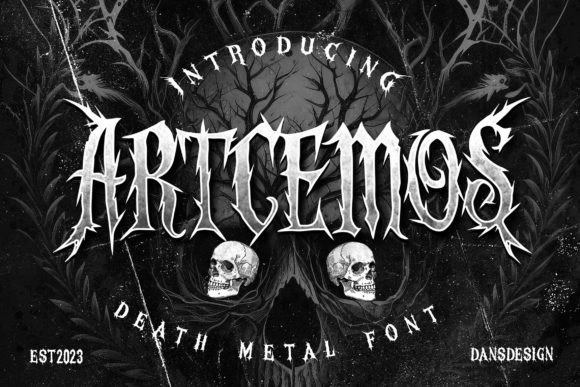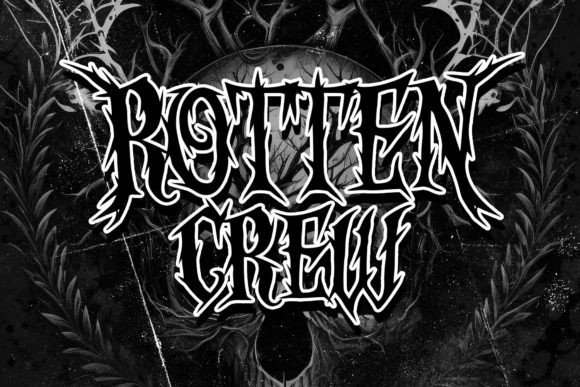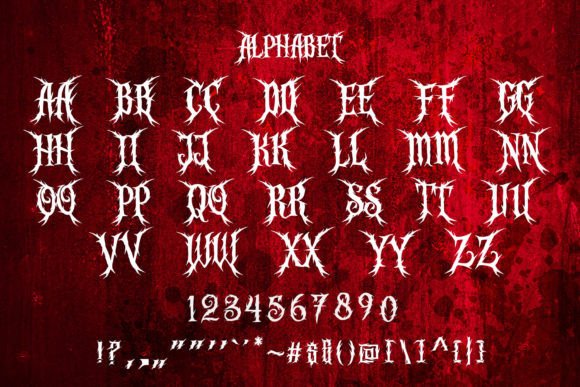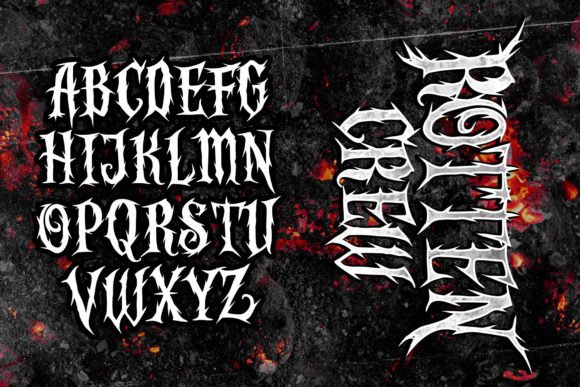
Artcemos Font: A Killer Horror Metal Display Font for Logo Design
About the Artcemos Font
The Artcemos Font offers a perfect balance of form and function for your design needs. Artcemos is a distinct, highly detailed, Horror Metal Font font. It would make a great choice for exquisite retro-urban designs, tattoo business branding, logos, vintage designs, and more.
Artcemos excels in headline treatments, logos, and short impactful phrases within posters or branding materials. Its intricate details shine in larger sizes, making it ideal for creating a strong visual statement. However, its high level of detail makes it unsuitable for body text or UI elements; readability suffers at smaller sizes.
The font’s personality is bold and rebellious, with a touch of vintage grit. It’s perfect for projects evoking themes of horror, metal music, tattoo art, or urban streetwear. Brands with a strong, edgy aesthetic would find Artcemos highly effective.
Consider pairing Artcemos with a clean sans-serif like Montserrat for contrast, or a more geometric sans-serif such as Futura for a modern, high-impact combination. A simple serif like Playfair Display could also work well, providing a touch of classic elegance to balance the font’s raw energy.
Artcemos Font Usage Examples
Artcemos Font Example